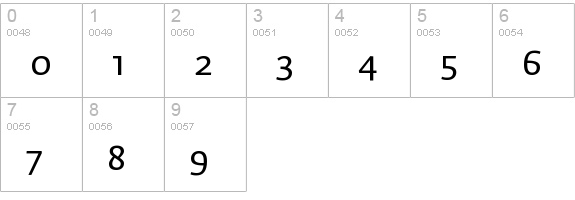
Auto 1 Regular Font Details
Auto 1 Regular is the standard, neutral variant in the Auto typeface family \xE2\x80\x94 well suited to general body text, paragraphs, and standard typographic work.